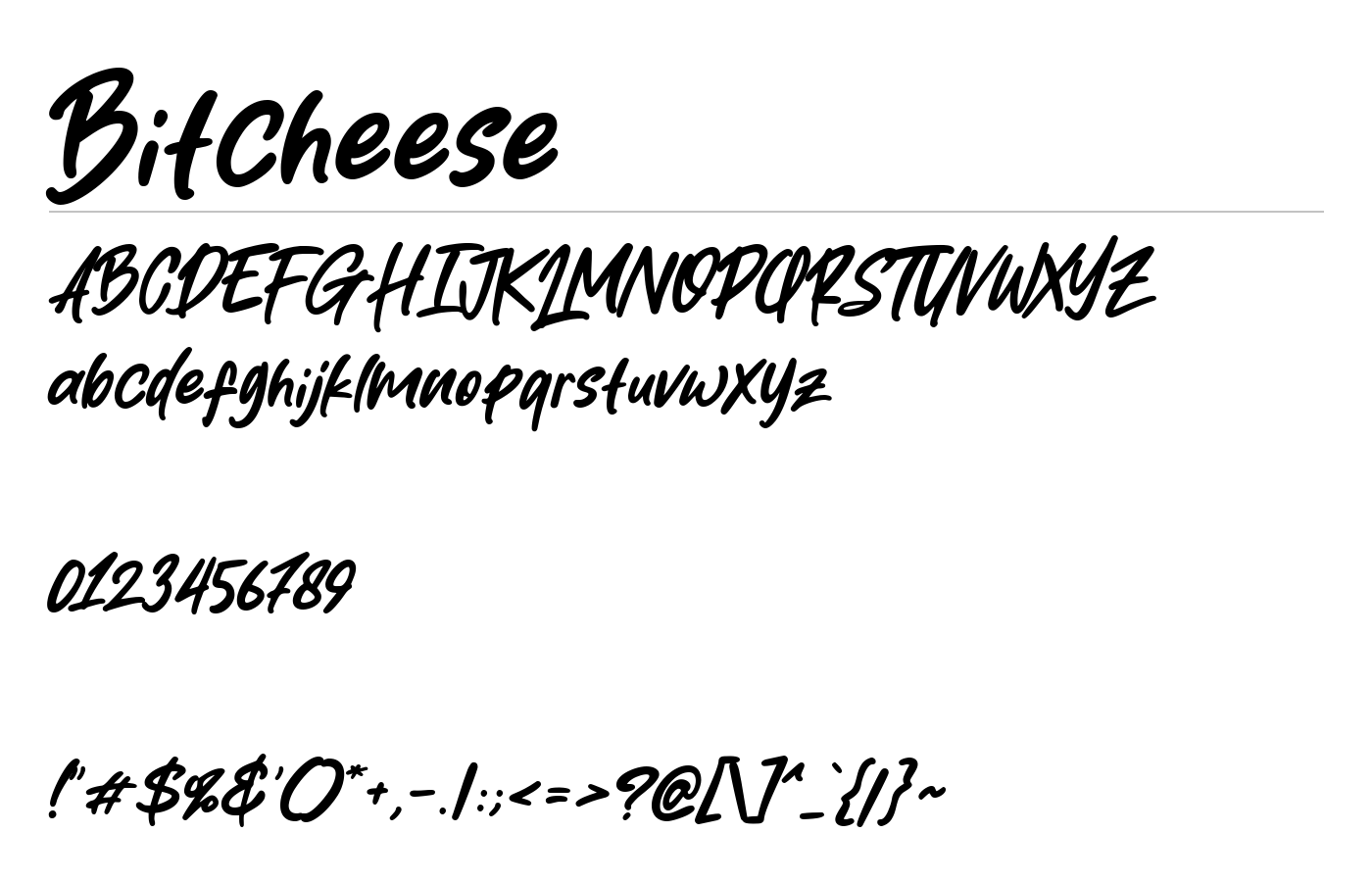
Bitcheese is a lively, casual script font with a bold, brush-like texture that feels energetic and personal. Its slightly slanted, fluid stroke and moderate contrast make it perfect for creative branding, informal headlines, and playful designs that want to communicate warmth and approachability. This font works well where a hand-drawn, dynamic style adds character and charm, such as in logos, posters, and social media graphics.
Bitcheese Font
About Bitcheese Font